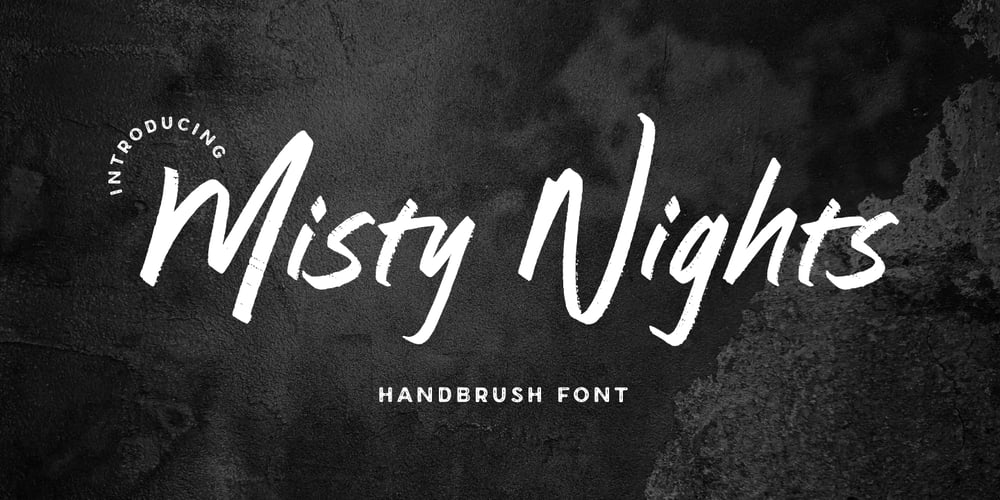
Misty Nights Font Family was designed by Muhamad Yusron Billah and published by Sronstudio. Misty Nights contains 1 styles and family package options. Misty Nights is a stunning handbrush font that exudes a raw and artistic vibe. With its bold strokes and natural flow, this font is perfect for branding, posters, social media, or any project that needs a creative, handcrafted touch. Bring your designs to life with Misty Nights!Included:- Upper & Lowercase- Numeral & Punctuation- PUA Encoded- Multilingual support- Simple Installation- Work both on Mac and WindowsThank you very much 🙂